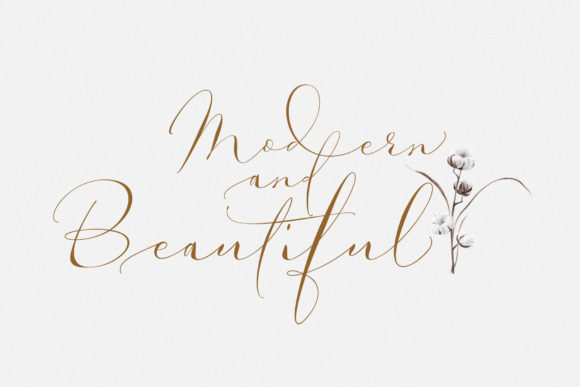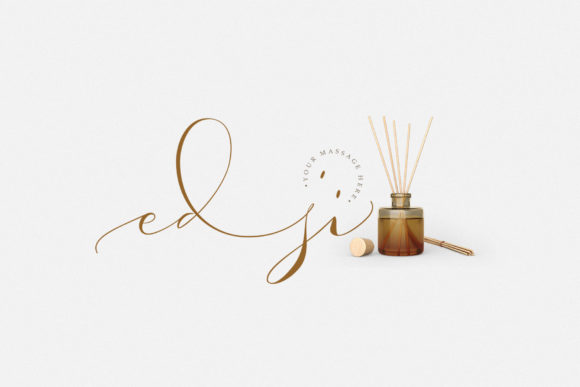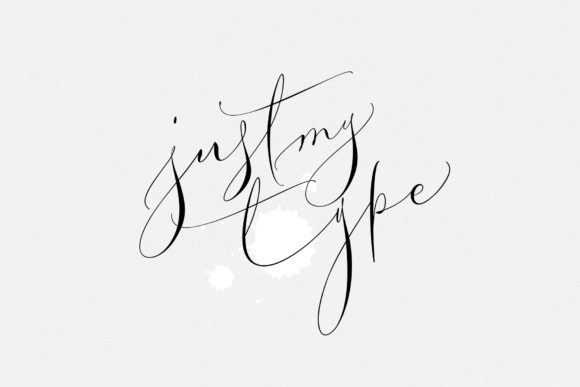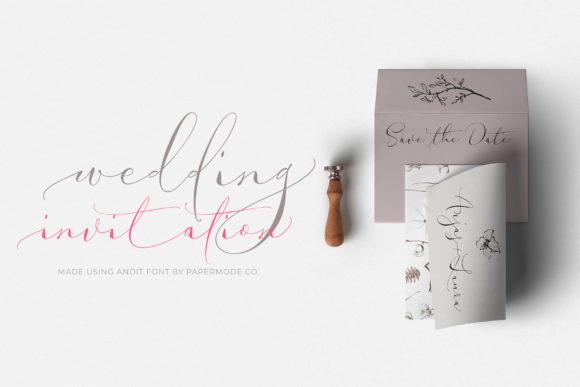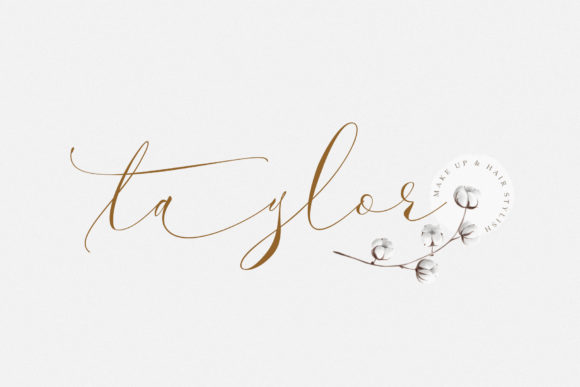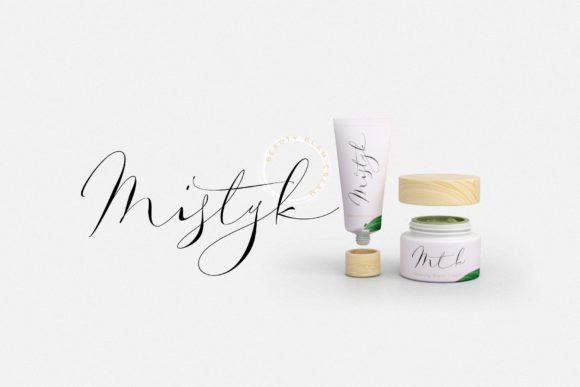
The Magic of Handwritten Fonts: Discovering Andit
Have you ever sat at your desk, staring at a blank page, and suddenly felt the urge to create something beautiful? Maybe it’s a poem, a letter, or a design concept – whatever it is, you want it to be perfect. You start doodling, experimenting with different lines and curves, and before you know it, your ideas are flowing onto the page. This is the moment when the right font can make all the difference.
This is where the Andit Font comes in – a delicate, elegant, and flowing handwritten font that brings your creative ideas to life. With its beautiful, well-balanced characters, Andit Font is the perfect addition to any design project. Its varying baseline, smooth lines, gorgeous glyphs, and stunning alternates make it a versatile font that matches a wide range of designs.
As a designer, you know how hard it can be to find the perfect font to match your vision. But with Andit Font, you’ll be amazed at how it elevates your work and makes it truly special. So why not give it a try and see the magic happen for yourself?
Andit Font Key Features
- Unique Characteristic: Andit Font features a unique blend of modern and traditional design elements, creating a distinctive visual identity.
- Font Weight: Available in various weights, from Light to Black, allowing designers to achieve a range of visual effects and moods.
Review of Andit Font
After experimenting with Andit Font, I must say it has some impressive qualities ✨. The font’s unique blend of modern and vintage elements makes it perfect for creating a distinctive visual identity. The Andit Font’s versatility allows it to be used in a wide range of applications, from branding and advertising to digital products and publications.
Here are some of the features that I appreciate about Andit Font:
- ✨ Elegant and sophisticated design
- ✨ Highly customizable with various font weights and styles
- ✨ Great legibility, making it perfect for reading and typing
However, I did encounter some limitations with Andit Font ⚠️:
- ⚠️ Limited language support, which may be a concern for global brands
- ⚠️ Some users may find the font too ornate or distracting in certain contexts
- ⚠️ The font’s unique style may not be suitable for all audiences or industries
Overall, I’m impressed with Andit Font’s unique character and design capabilities. While it may not be the best choice for every project, it’s definitely worth considering for applications where a distinctive and elegant font is required.
Tips for Getting the Most Out of Andit Font
For optimal results, use Andit Font in bold or italic styles to add emphasis to your text. You can also experiment with different font sizes and colors to create a visually appealing design. Additionally, use Andit Font in combination with other fonts to create a unique and interesting typography.
Andit Font is commonly used in modern and minimalist designs, such as logos, business cards, and brochures. It’s also suitable for use in headings and titles to add a touch of sophistication and elegance to your design.